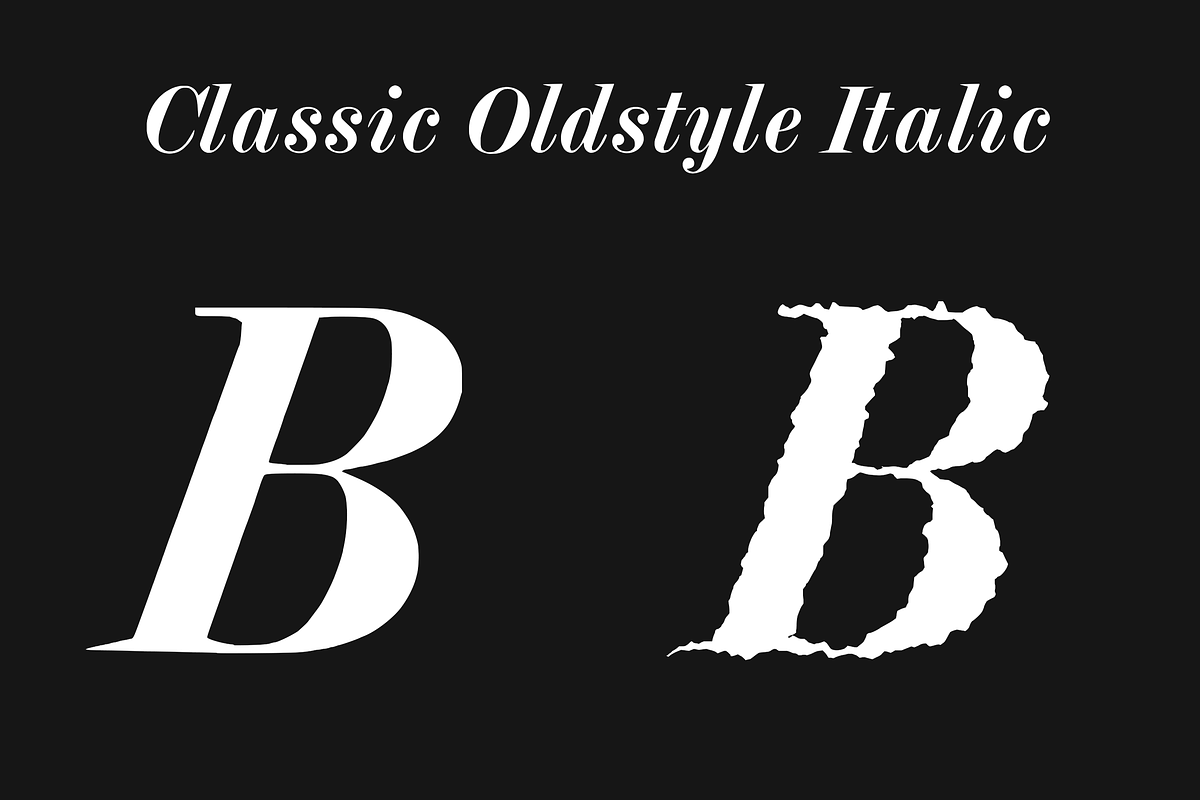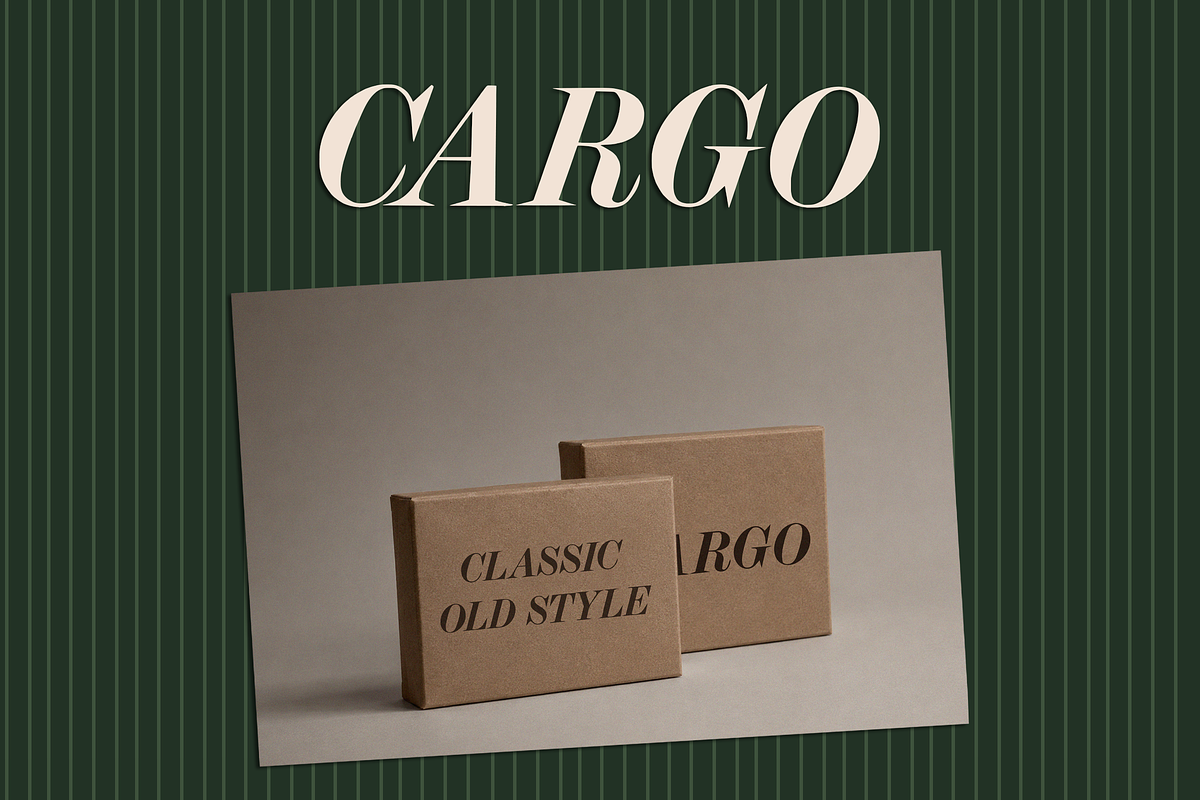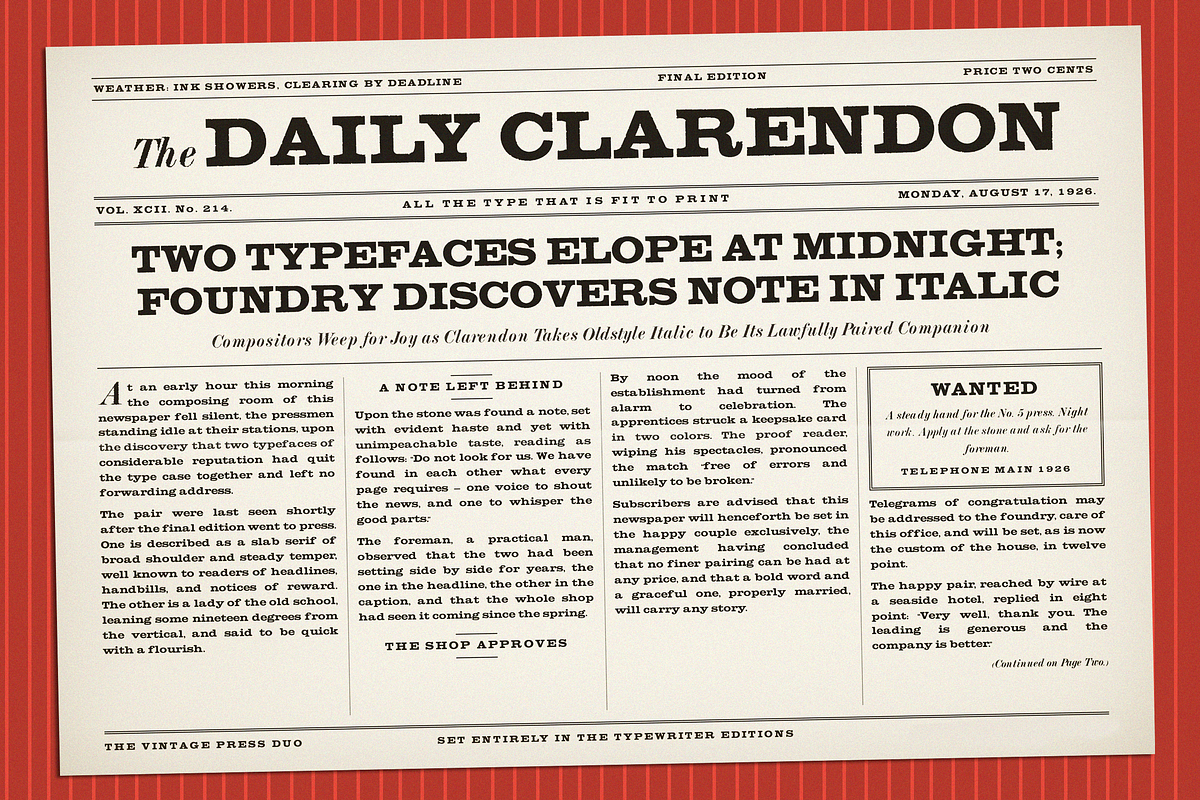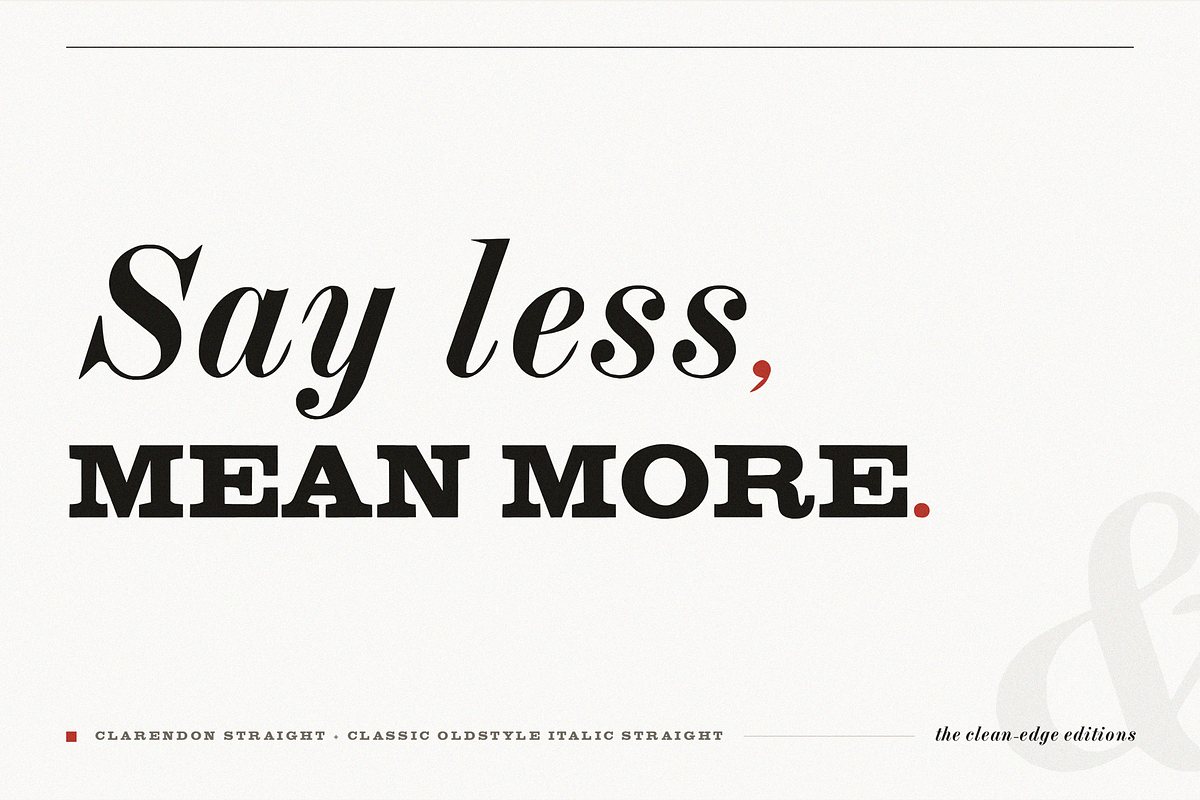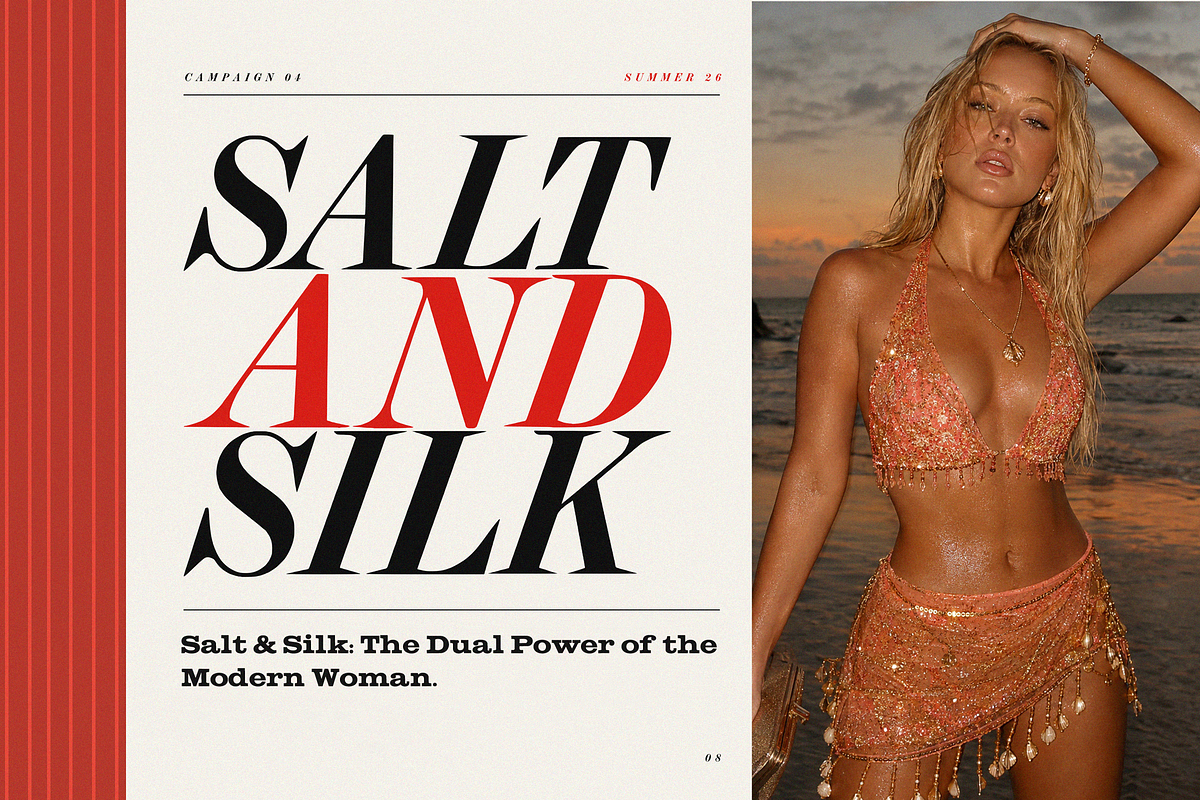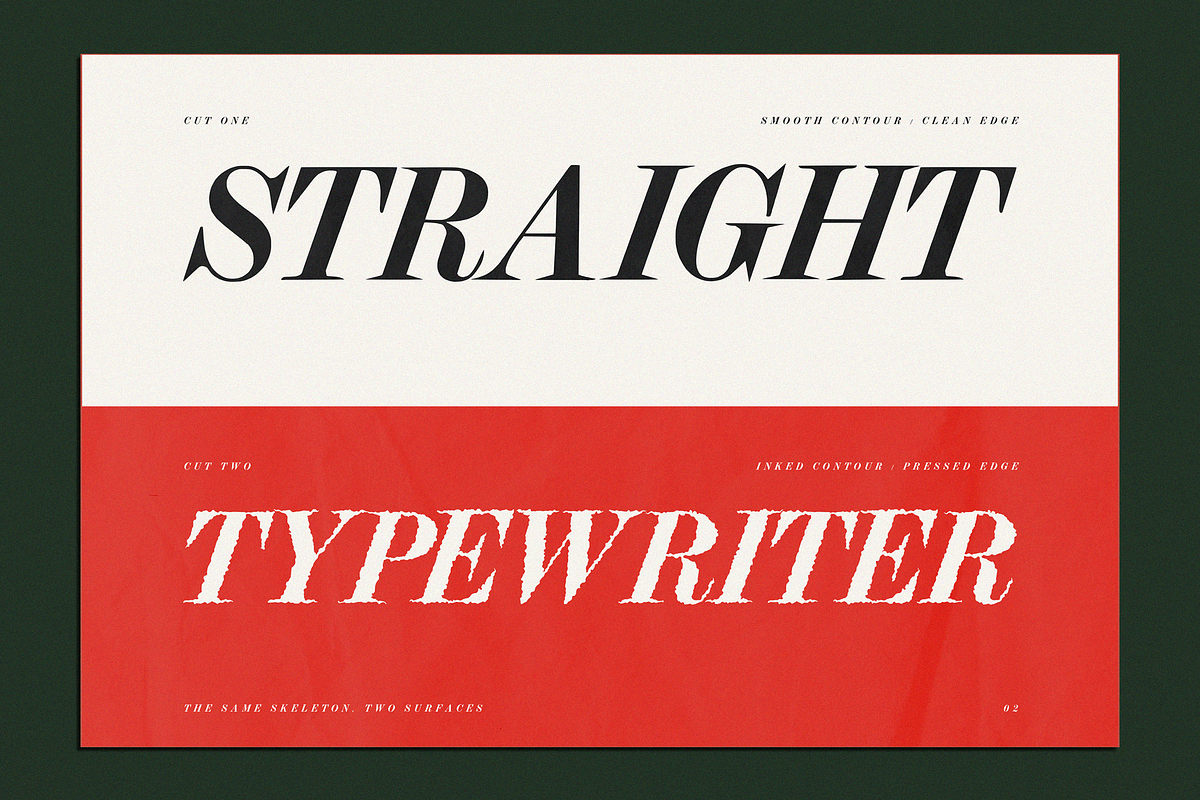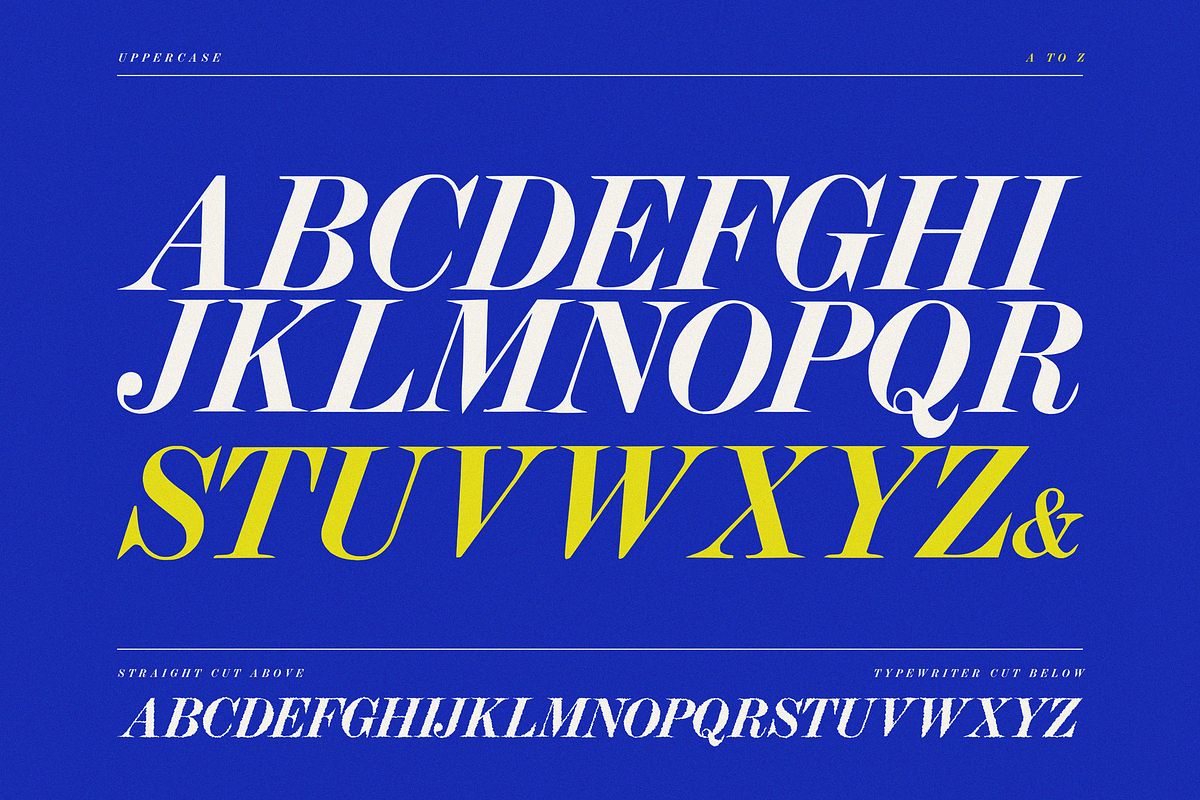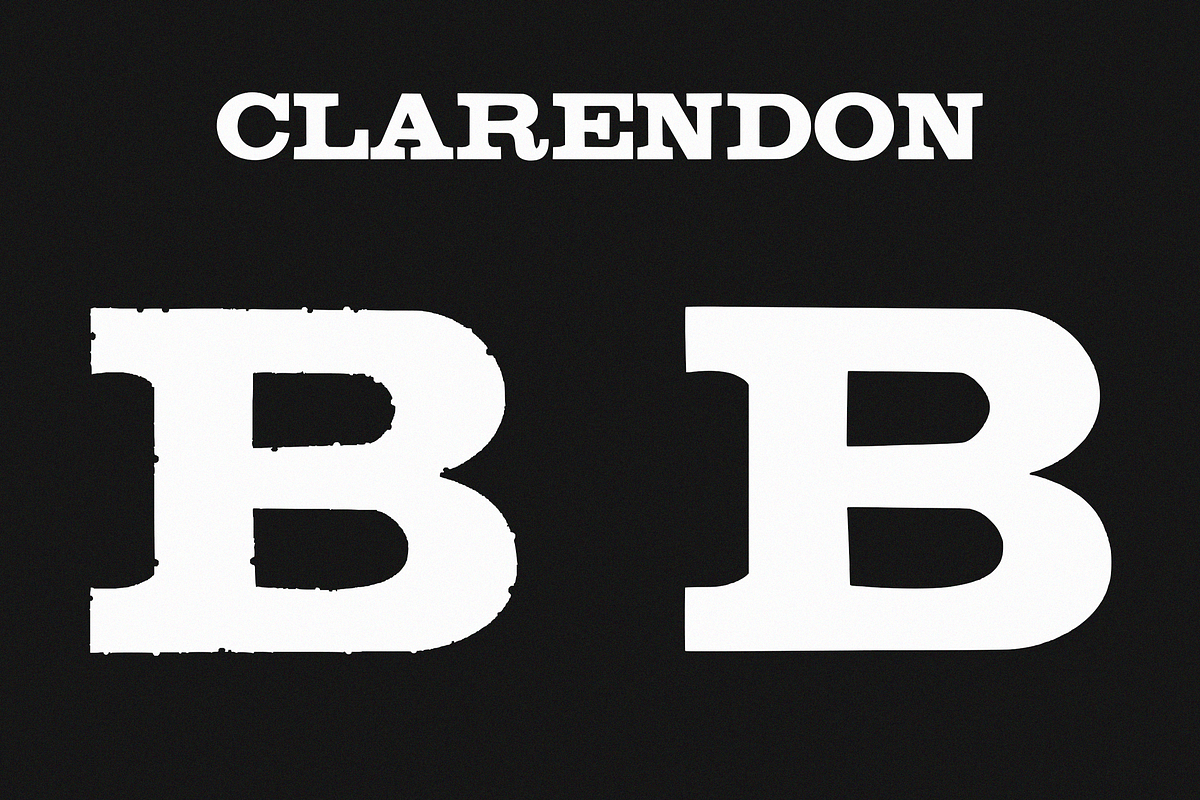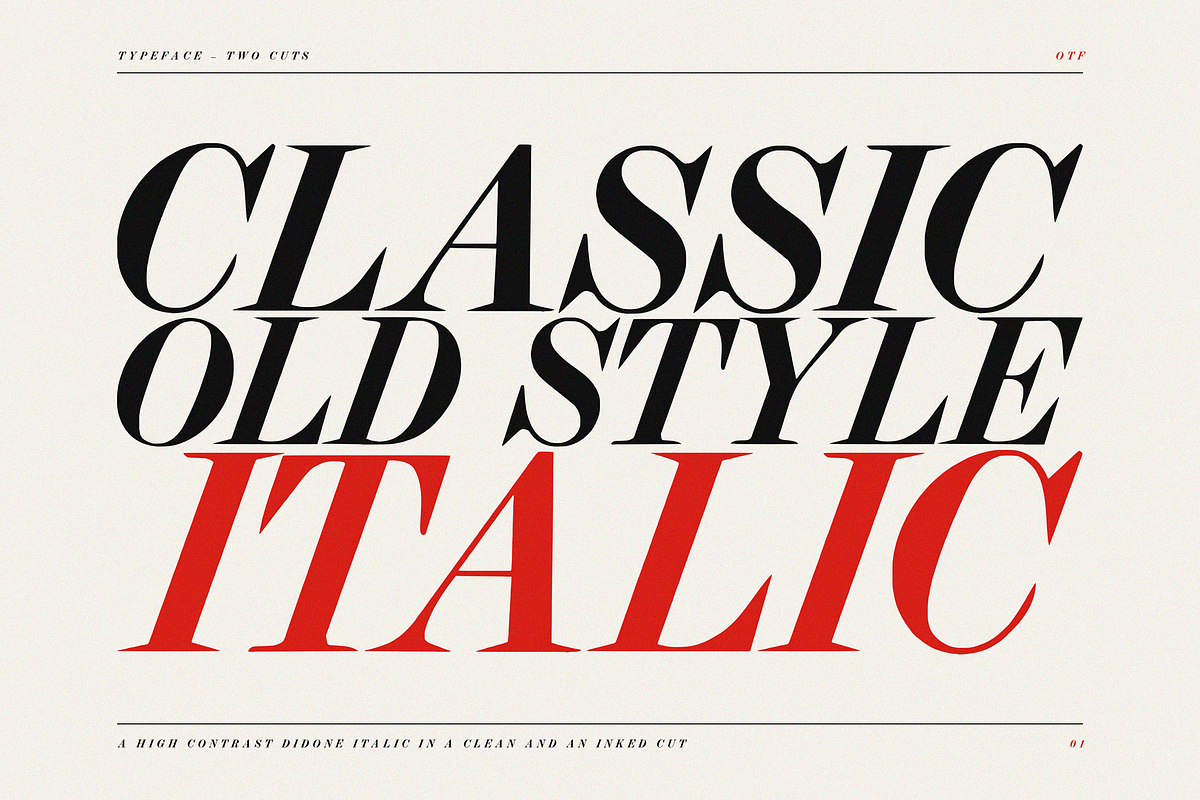
Vintage Press Font Duo
Two typefaces, two personalities, and two finishes.
This font bundle brings together CLARENDON and Classic Oldstyle Italic - two very different typefaces that were made to sit beautifully beside one another.
CLARENDON is bold, solid and unapologetically sturdy, with the character of old printed advertisements, newspaper headlines, packaging and traditional letterpress typography.
Classic Oldstyle Italic is its more elegant counterpart - a high-contrast italic with sweeping shapes, sharp details and a distinctly editorial feel. It works beautifully for fashion layouts, titles, invitations, packaging and expressive display typography.
This collection was inspired by vintage lettering archives, historical printed references, and the charm of old typography. Both fonts were developed with that archival spirit in mind, while being refined into practical, versatile typefaces for contemporary design work.
Each typeface comes in two versions:
Clean - smooth, crisp letterforms for modern layouts and polished typography.
Vintage Textured - the same character with an imperfect, crisp printed texture inspired by aged type, old presses and slightly worn typewriter-style ink.
Together, the four styles can move between clean contemporary design and something that feels as though it came straight from an old print shop.
CLARENDON — Clean
CLARENDON — Vintage Textured
Classic Oldstyle Italic — Clean
Classic Oldstyle Italic — Vintage Textured
Use them separately or pair them together - Clarendon for the loud voice, Classic Oldstyle Italic for the softer one.
Perfect for editorial design, posters, magazines, branding, packaging, book covers, invitations, vintage advertisements, headlines, fashion graphics, labels and print-inspired projects.
A little clean, a little imperfect - two voices from the same vintage press.